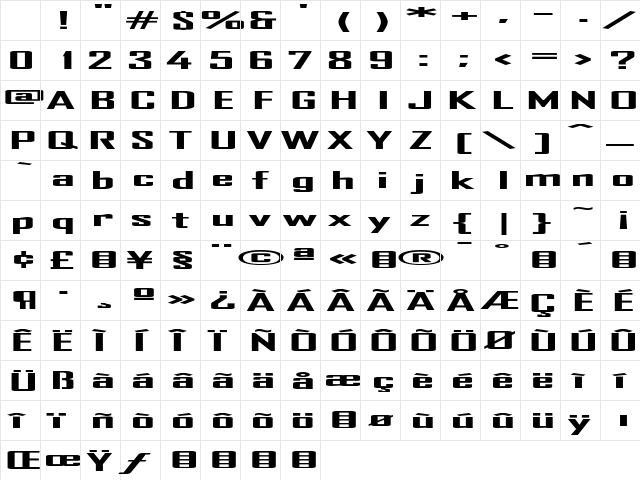
Complete TR Heavy glyph index. Displaying only characters natively supported by TR Heavy font.
TR is a composed and adaptable typeface that performs quietly and consistently across a wide range of design contexts.